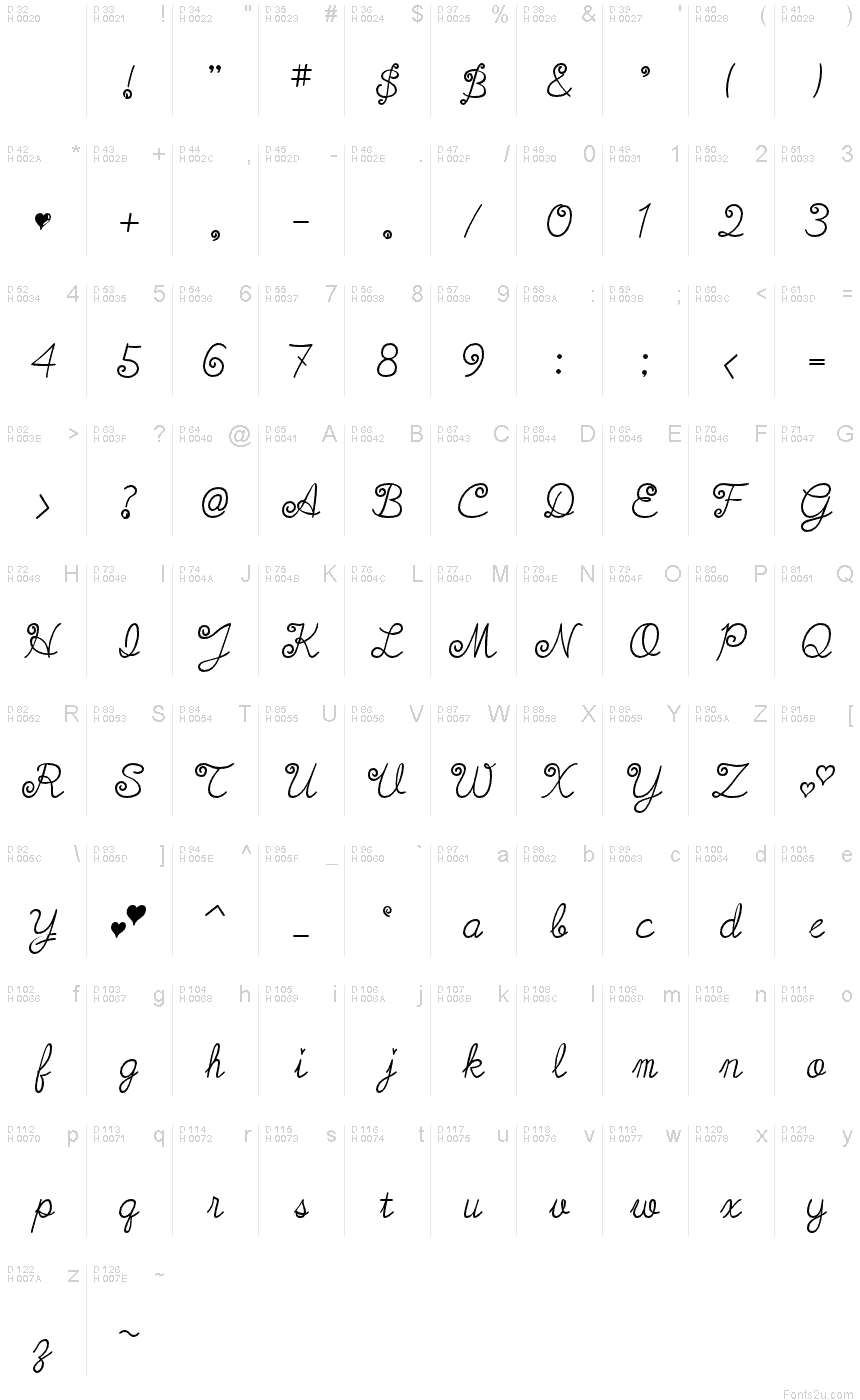
AKMy Prince by Akubi Zirushi is a free calligraphic script with tall, looping capitals and an unusually lively line. Its strokes stay mostly slender, then sweep into broad curls that cross and rejoin the letters. The smaller forms are compact and quick, which keeps the ornament from feeling overly formal.
Wedding invitations and beauty packaging draw on the same graceful flourishes, though one feels ceremonial and the other personal. It also suits fashion branding and music artwork, where the loops can become part of a logo or product identity.